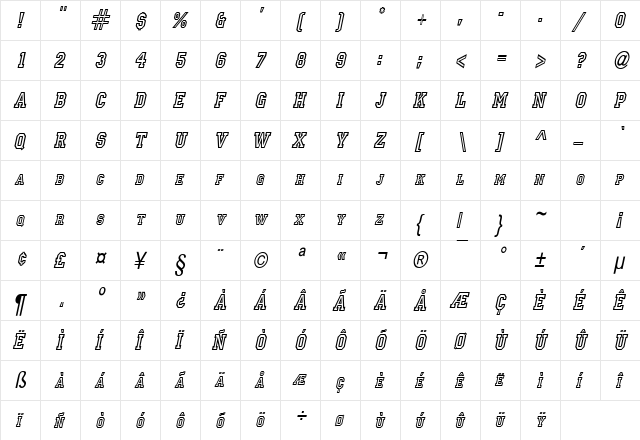
Princeton Condensed Italic Font Preview
Design Context for Princeton Condensed Typeface
Princeton Condensed takes a measured approach to typography — its balanced proportions and neutral character make it a reliable workhorse for both digital and print work. The slanted form adds forward momentum and visual energy. The condensed width makes it efficient for tight spaces without sacrificing legibility.
Pro Tip: Use Princeton Condensed for emphasis, pull quotes, and subheadings where its slanted energy can add rhythm to the layout.